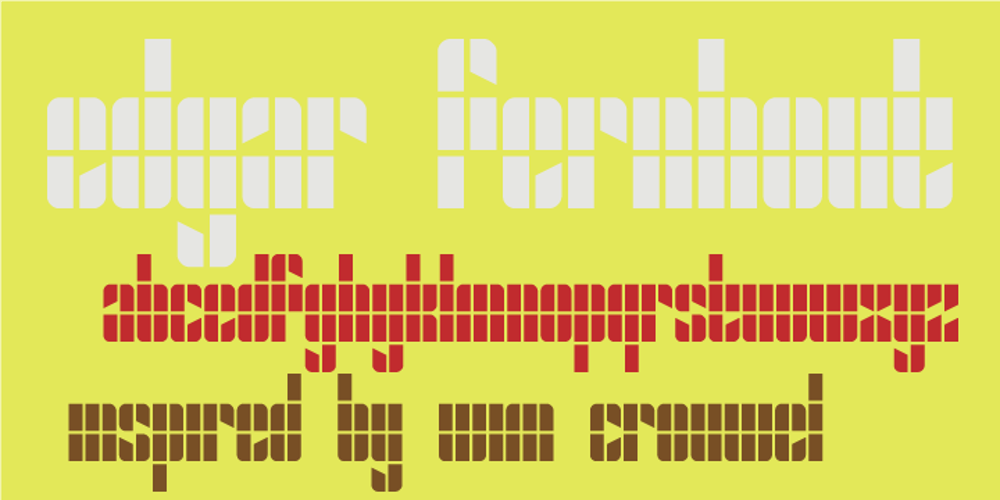
Edgar Fernhout Font Family was designed by Wilson Thomas and published by Funk King. Edgar Fernhout contains 1 styles and family package options. Edgar Fernhout is a font inspired by the Edgar Fernhout cover designer by the great typographer and designer, Wim Crouwel.